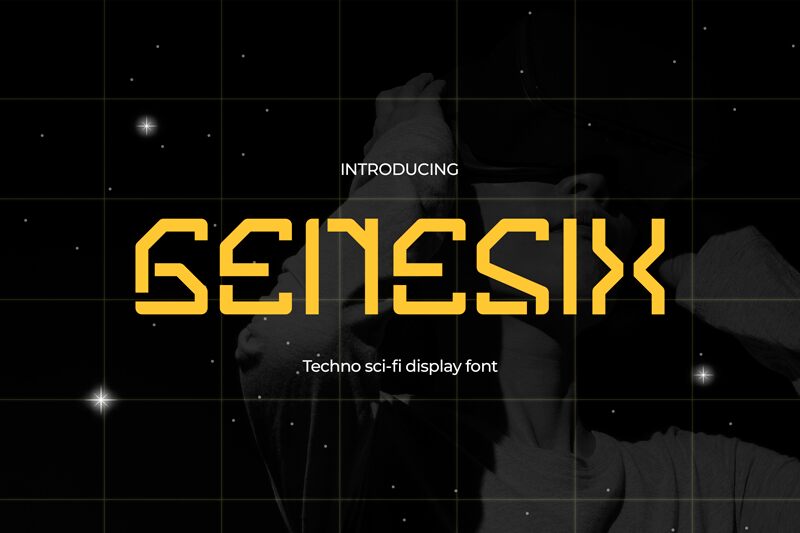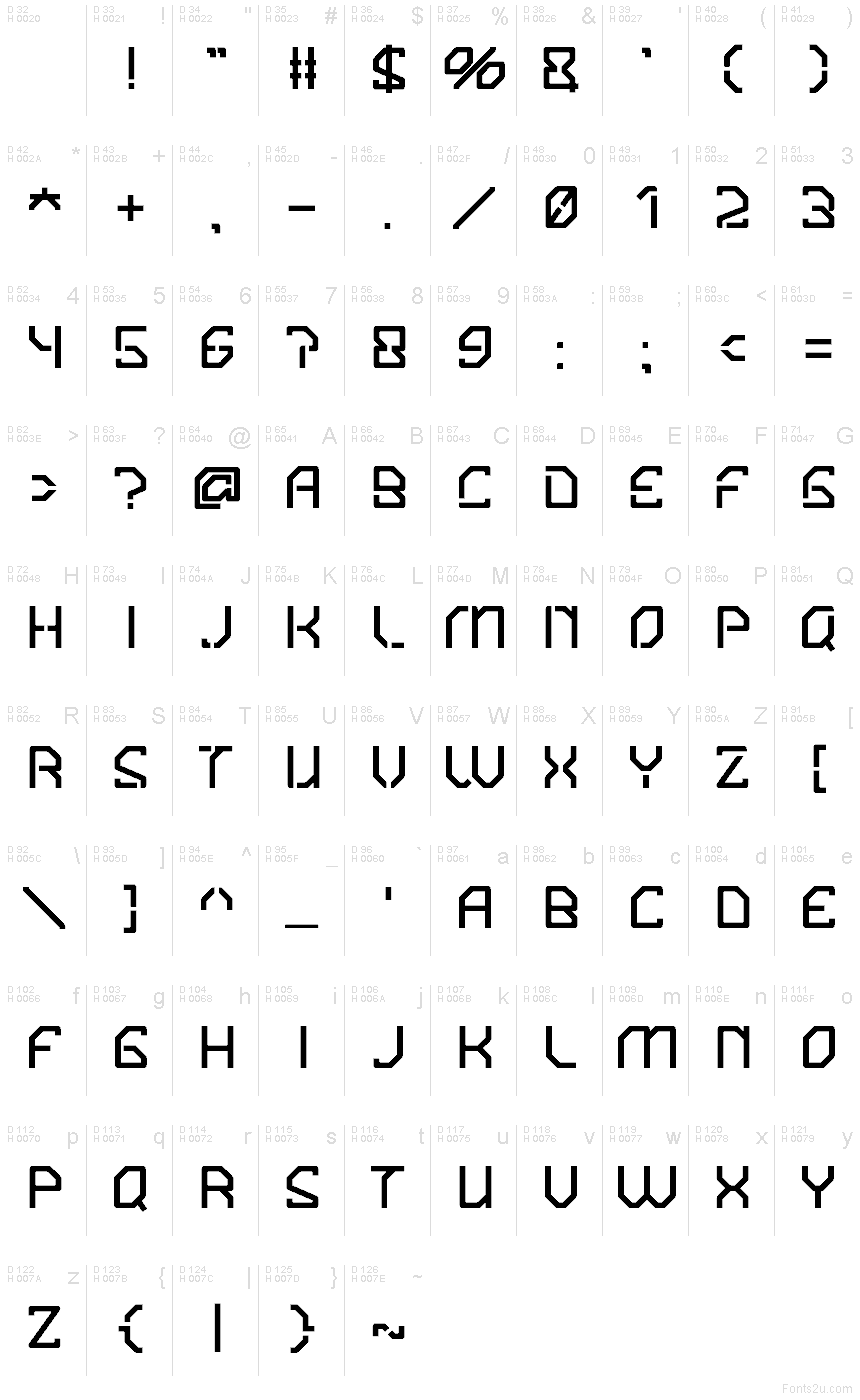
GENESIX
Genesix font is a sharp-angled futuristic display font from Pinisiart with a modular geometric style. Its tech-inspired and mechanical appearance comes to life through minimalist shapes. The design exhibits a dense regular structure and horizontal alignment which together deliver a professional typographic presence for its viewers.